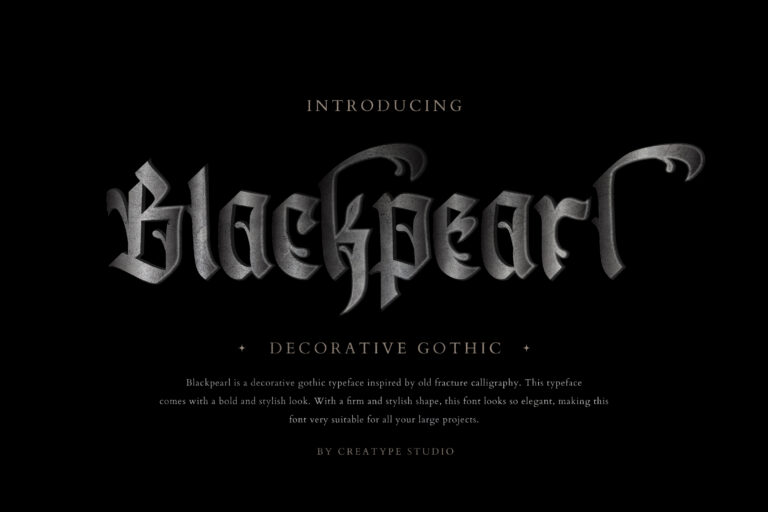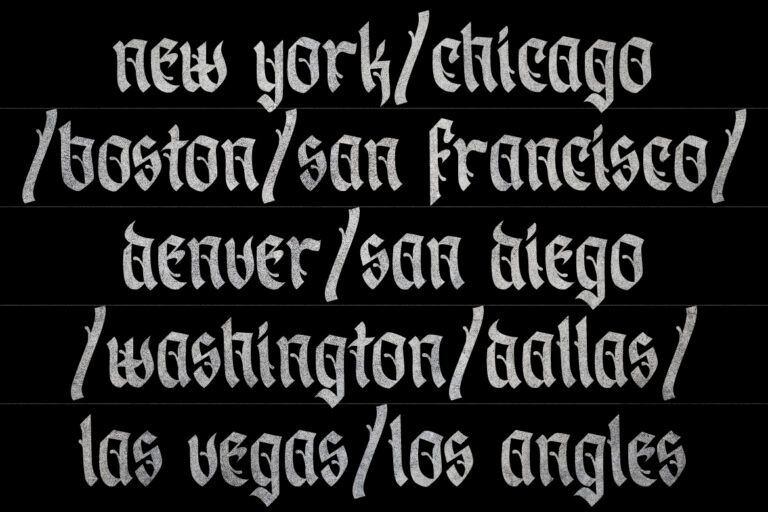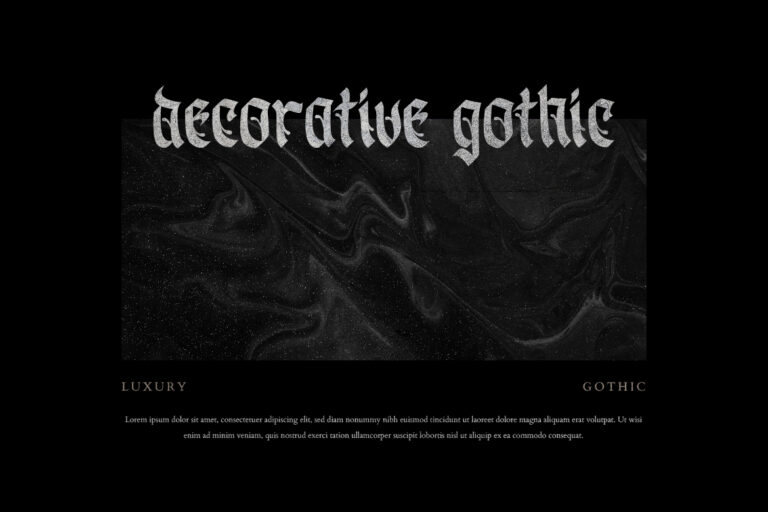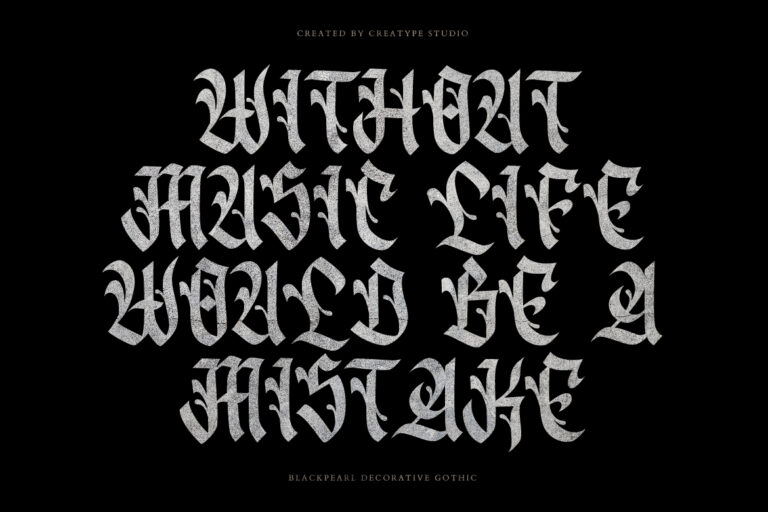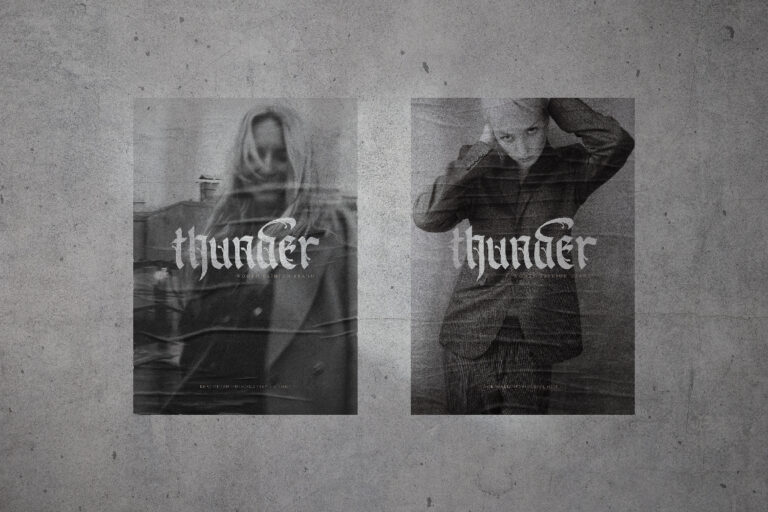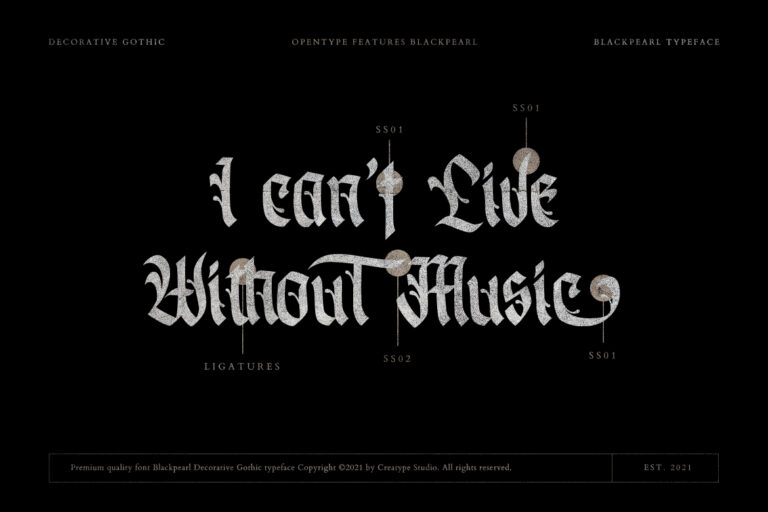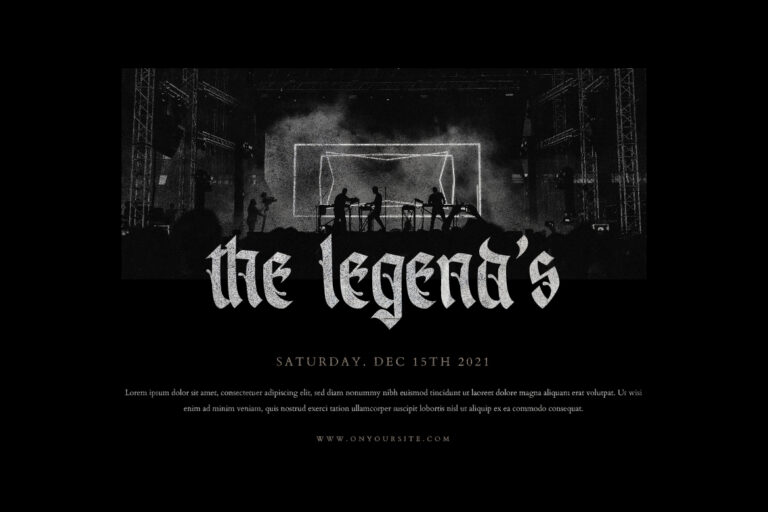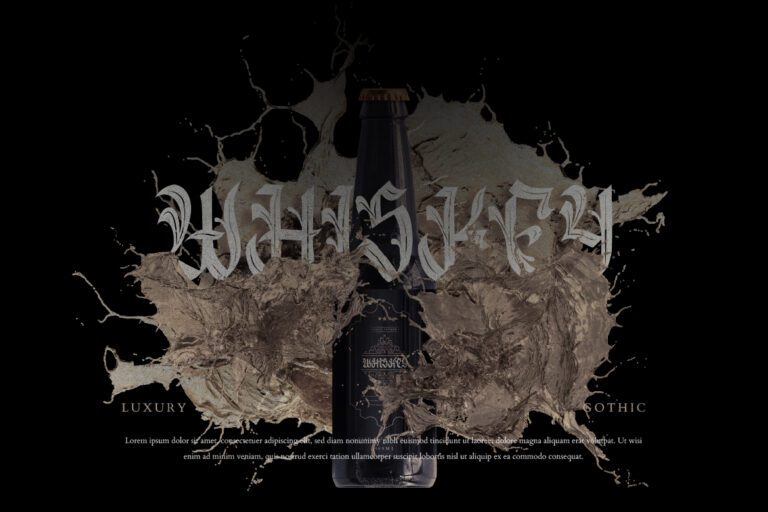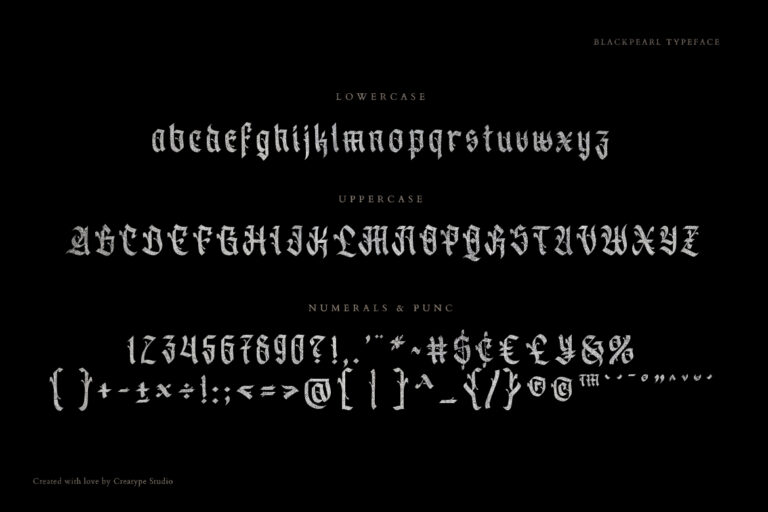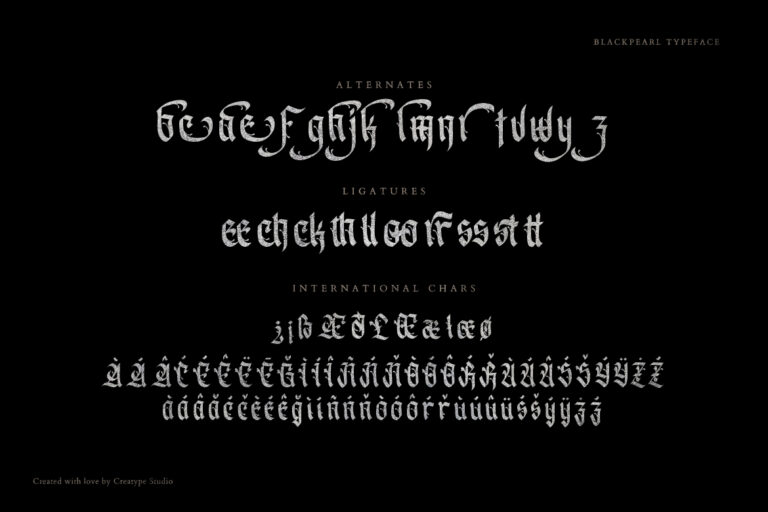
Blackpearl is a decorative gothic inspired by the blackletter font. These fonts are specially crafted and pay close attention to strokes resulting in great looking fonts with their unique and bold shapes.
Blackpearl Decorative Gothic